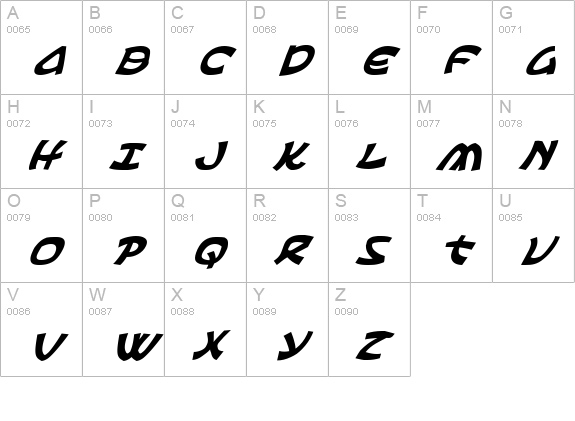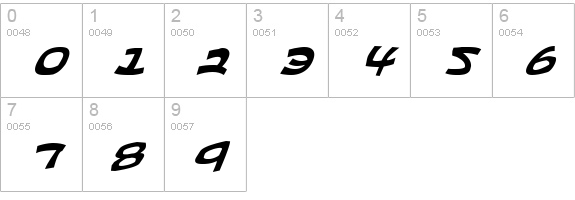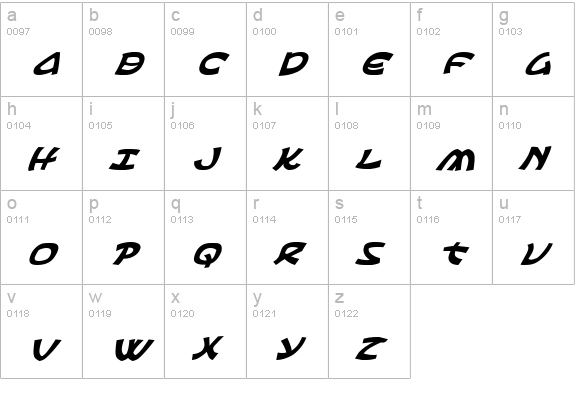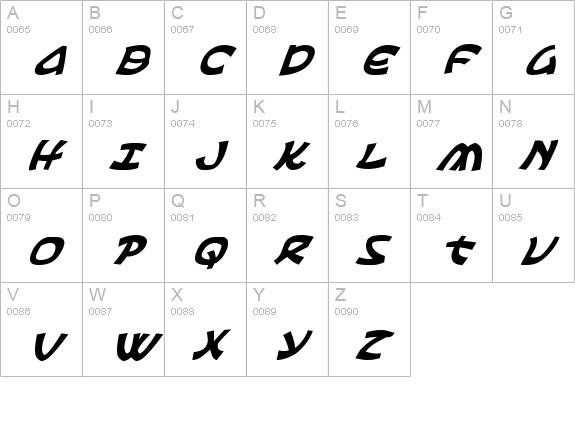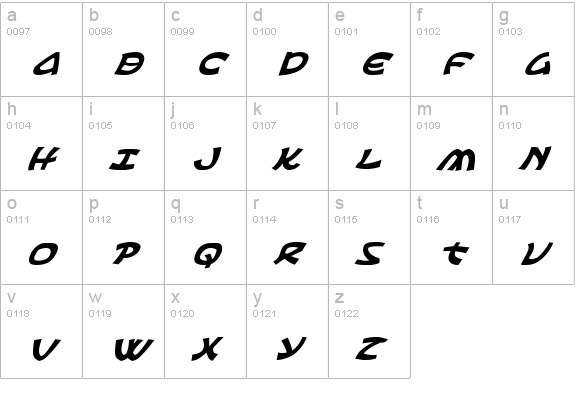
Ephesian Italic is a distinctive, italic variant in the Ephesian typeface family \xE2\x80\x94 well suited to design and typography projects.
Ephesian Italic is a stylish and elegant font that exudes sophistication and charm. With its graceful curves and delicate lines, this font is perfect for adding a touch of class to any project. Whether you're designing a wedding invitation, creating a logo, or crafting a beautiful piece of typography art, Ephesian Italic is sure to make a lasting impression. The best part? Ephesian Italic is completely free to download at FontsMarket.com. That's right, you can access this stunning font at no cost, making it a fantastic option for both personal and commercial use. So why wait? Add Ephesian Italic to your font collection today and elevate your designs with its timeless beauty and grace.